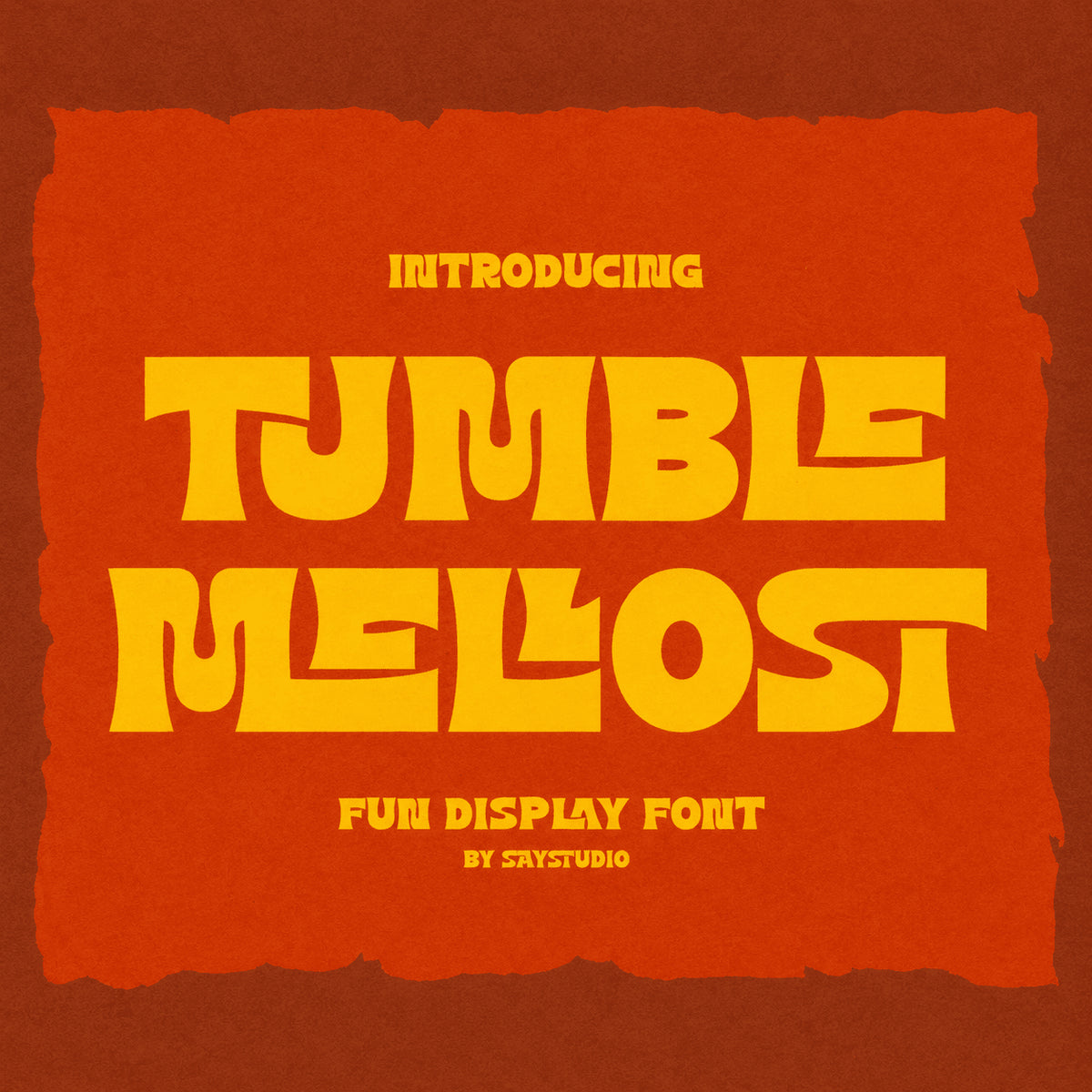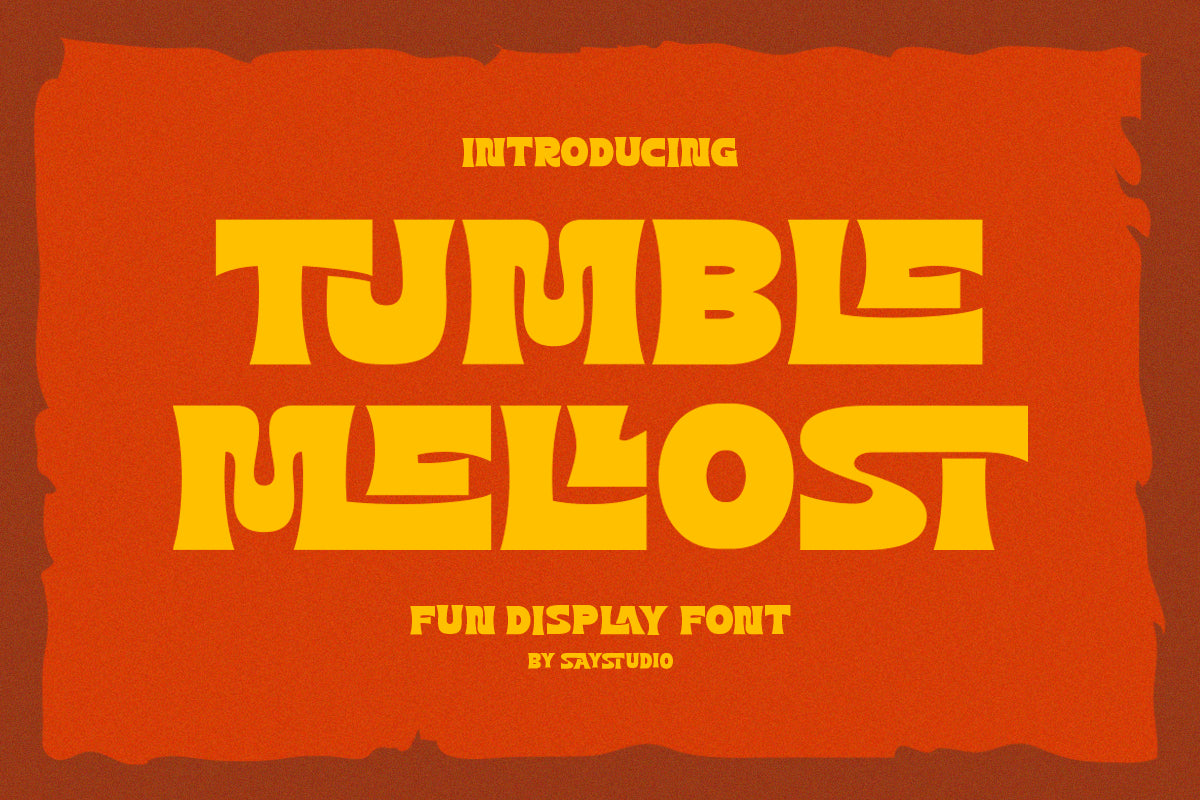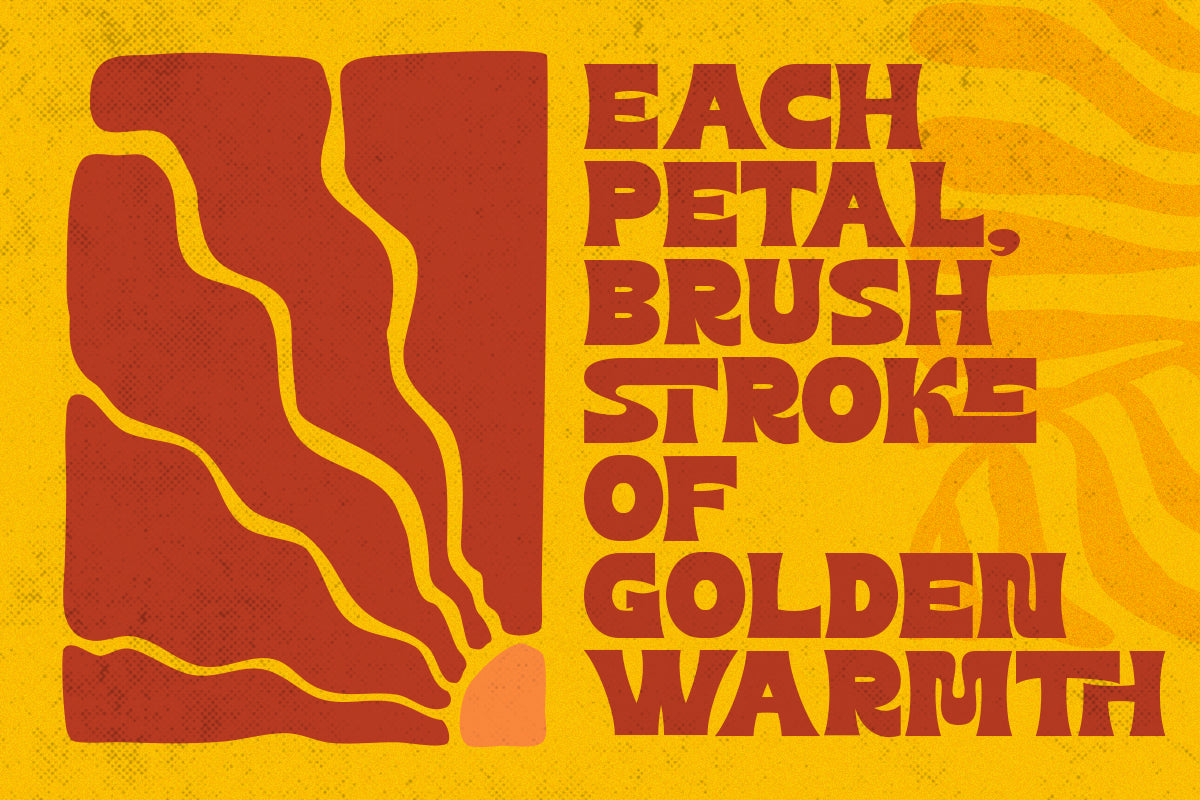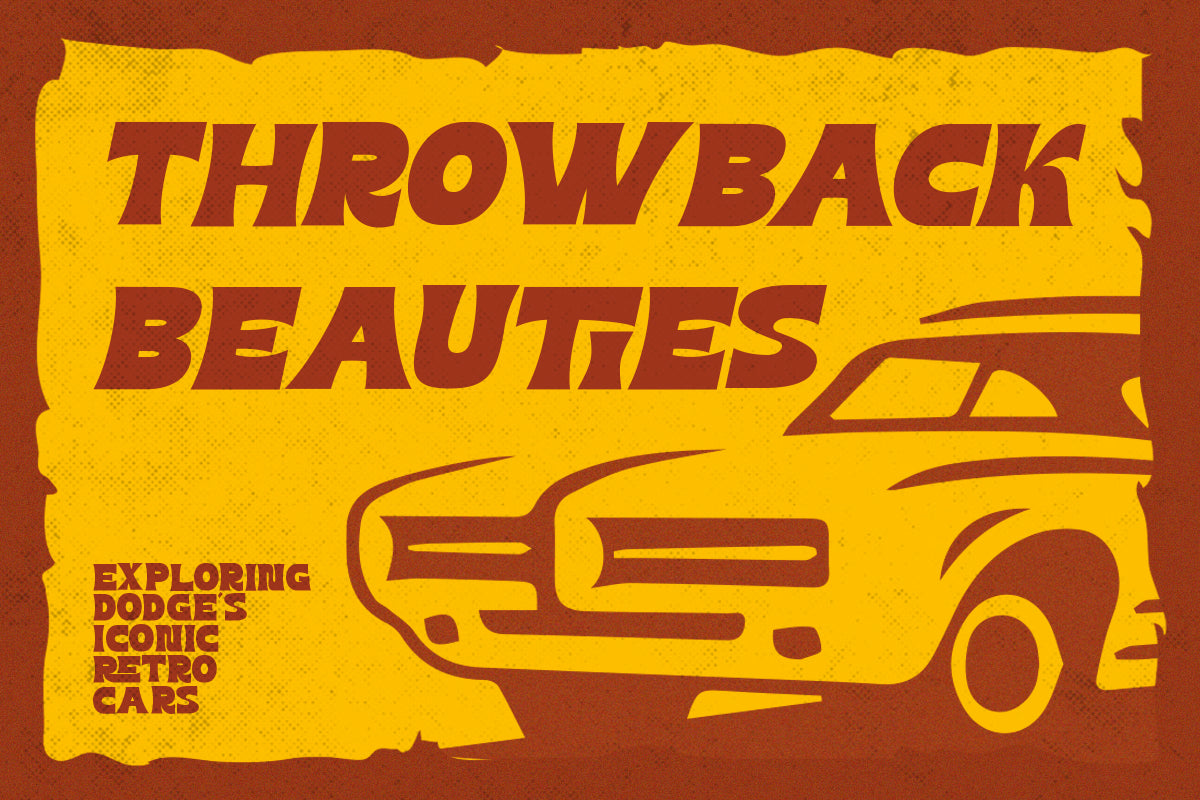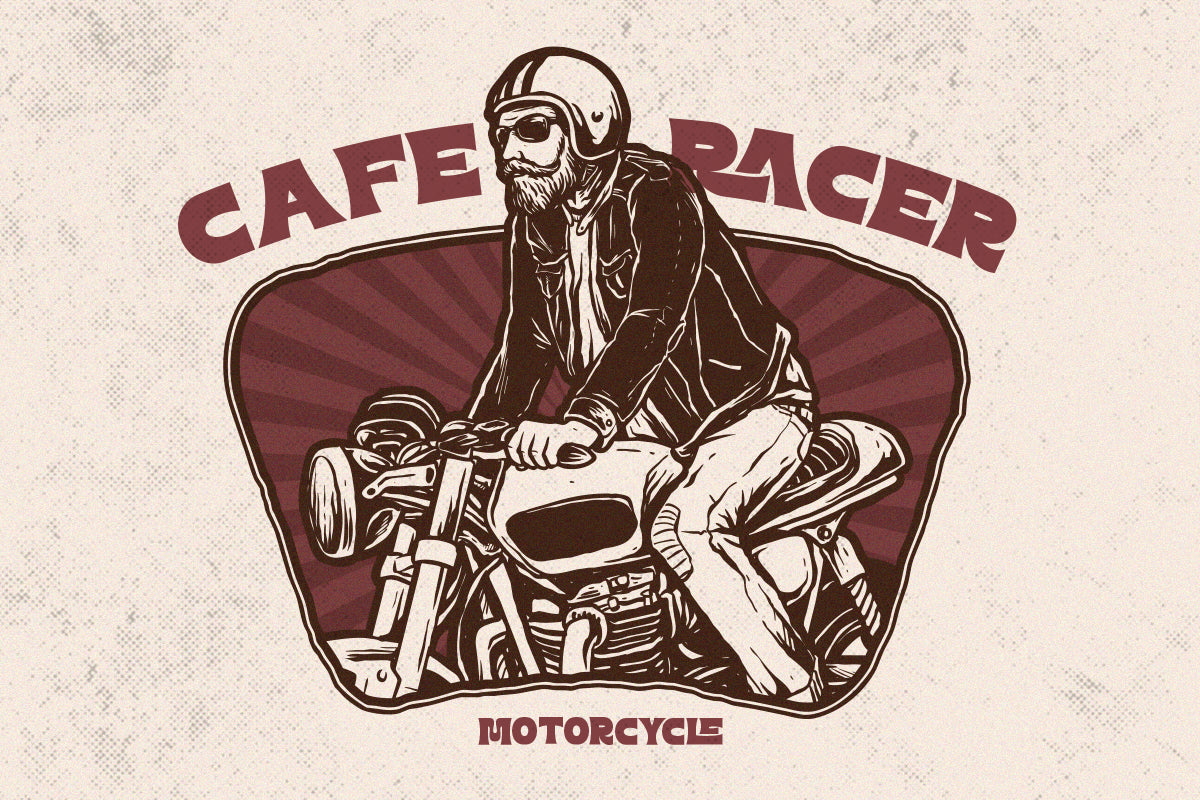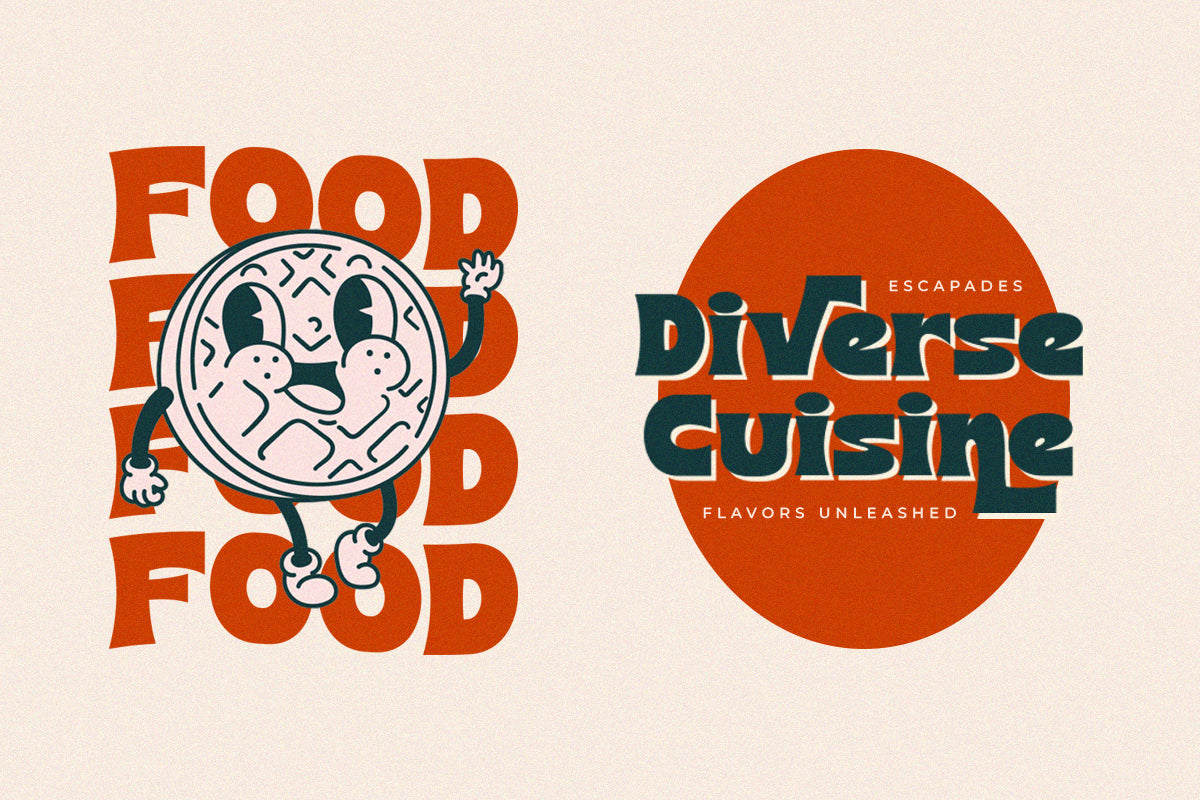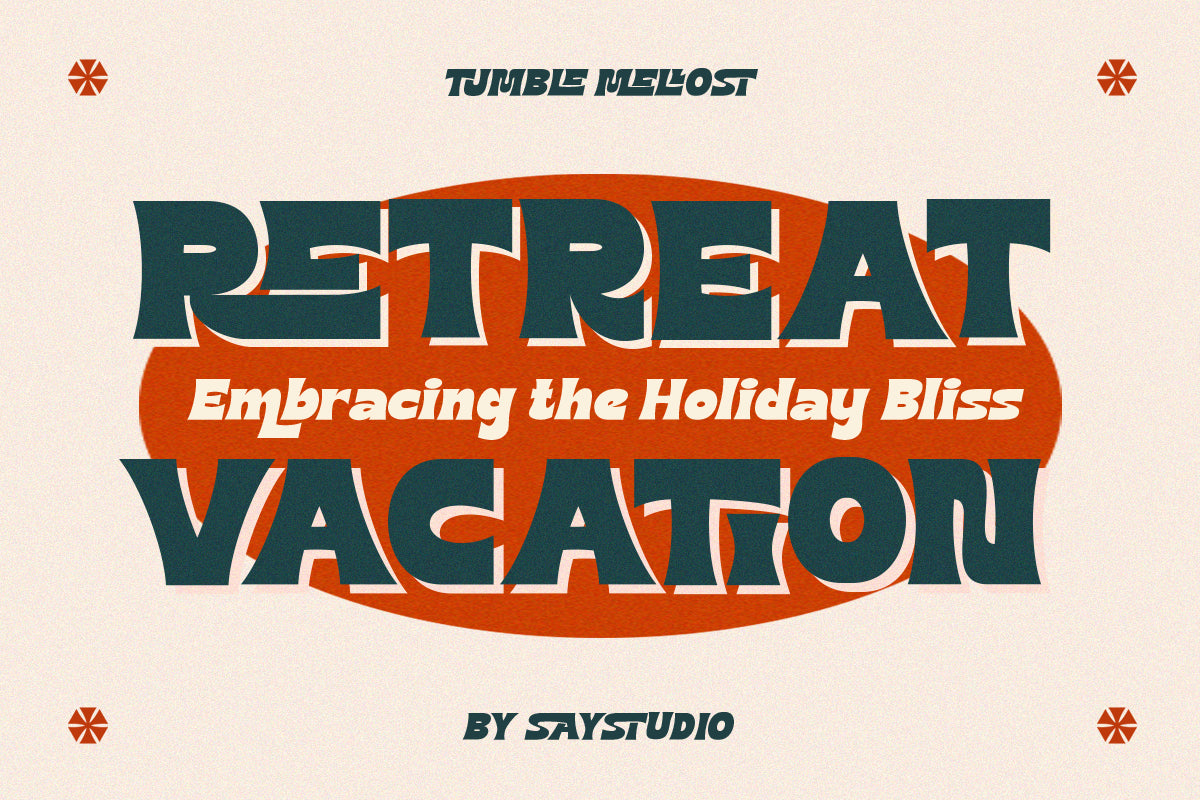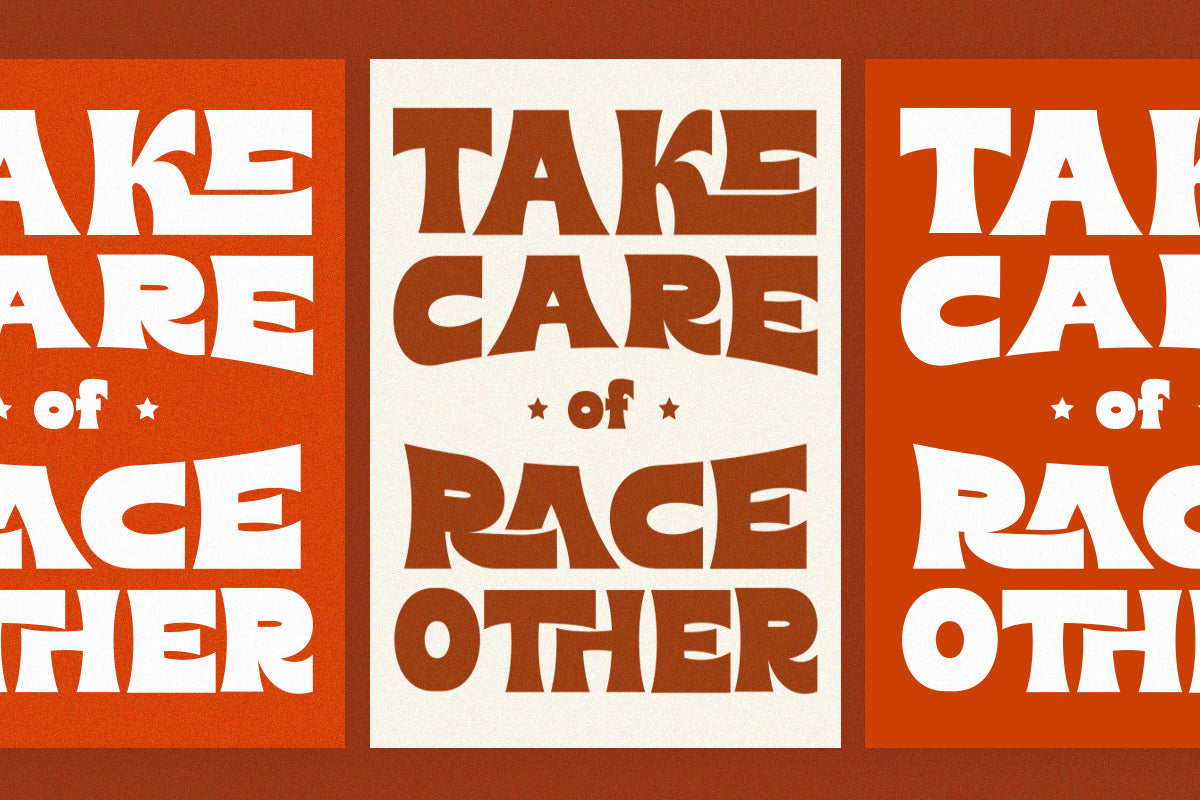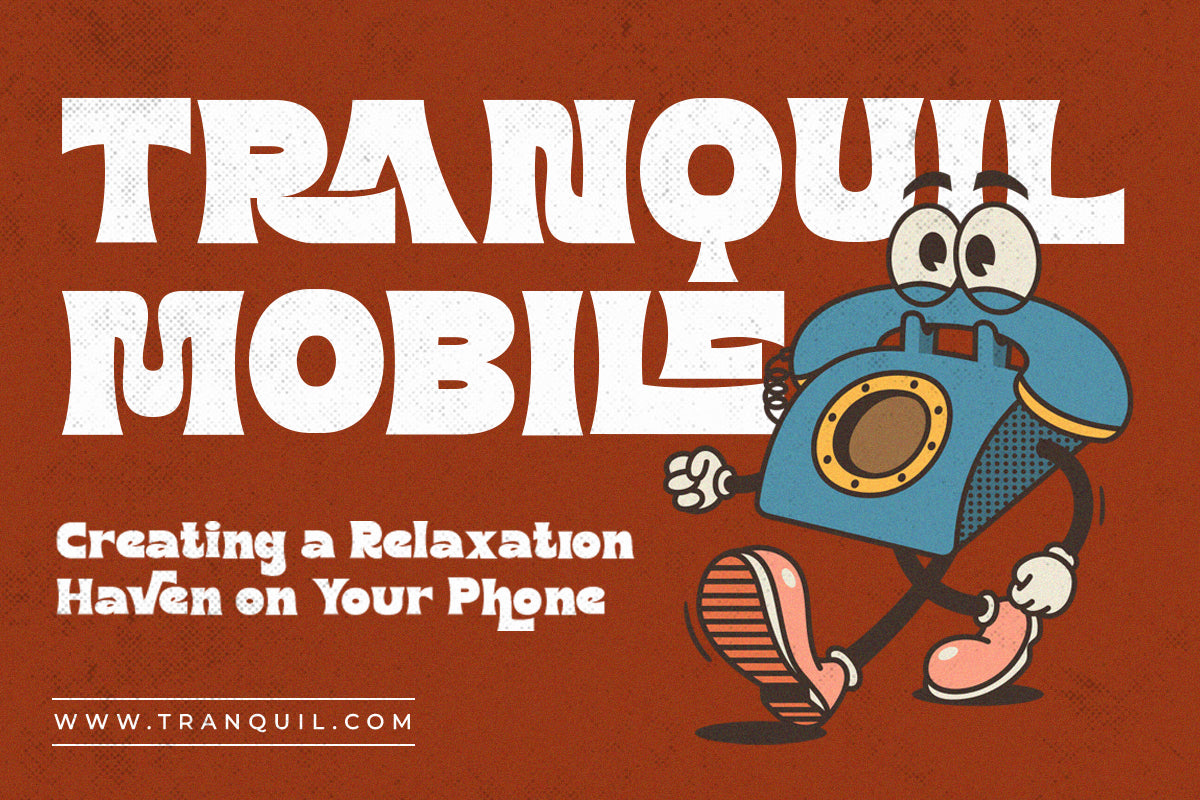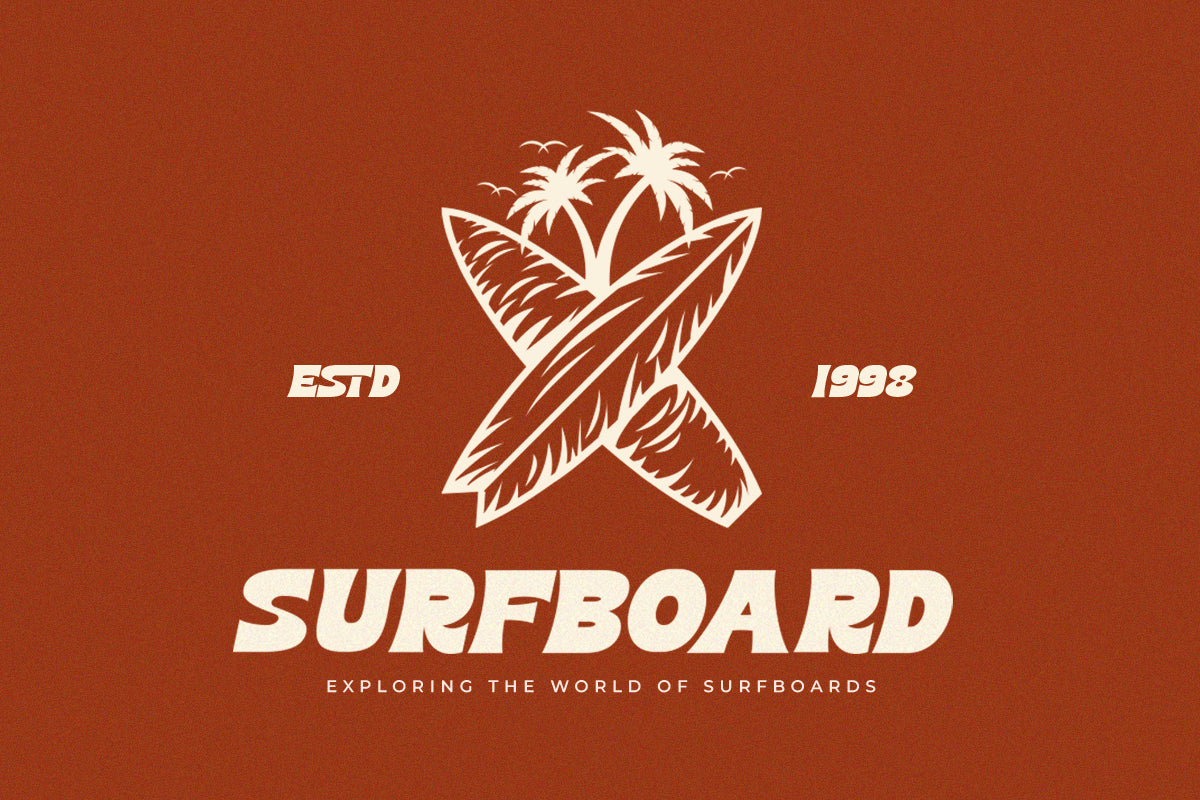
Tumble Mellost - Fun Display Font
Introducing Tumble Mellost, our new and fun font collection. It combines modern, playful, and formal together. It contains so many alternates and ligatures that you can use it for more fun on your projects.. The Characteristic of Brice are in the small bouncy serif with a dynamic contrast, like h,k,m,n,v,w, etc. Perfect for Logotype, Caption, & Header.
Tumble Mellost font is ideal for branding projects or packaging that need a quirky and playful feel.
• Regular and Italic
• Special Alternates
• Stylistic Ligatures
• Uppercase and Lowercase
• Number, Symbols, and Punctuation
Tumble Mellost is a display font featuring bouncy serif characteristics with dynamic contrast on letters such as h, k, m, n, v, and w. It includes regular and italic styles, alternates, stylistic ligatures, uppercase and lowercase characters, numbers, symbols, punctuation, and multilingual support, available in OTF, TTF, and WOFF formats.